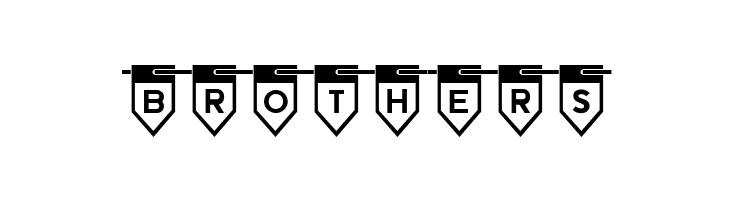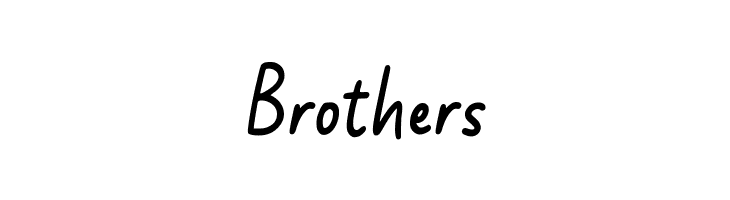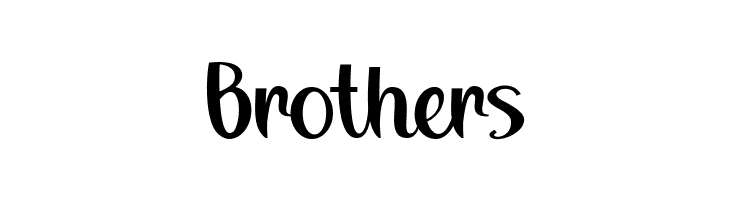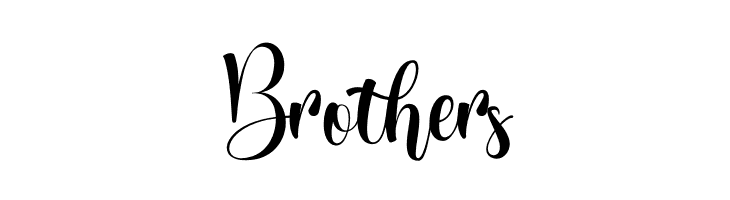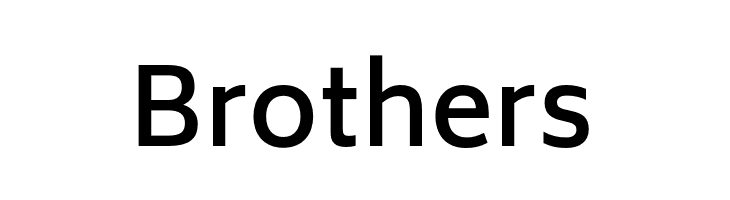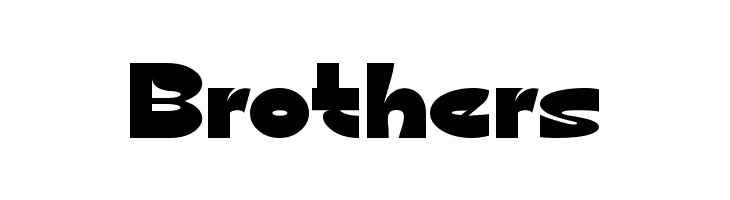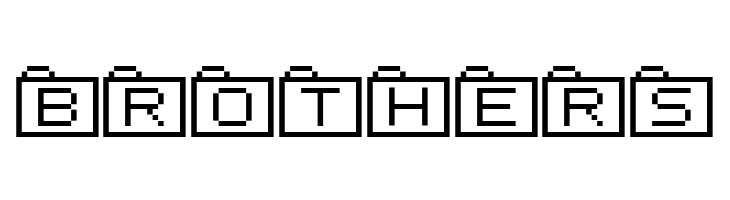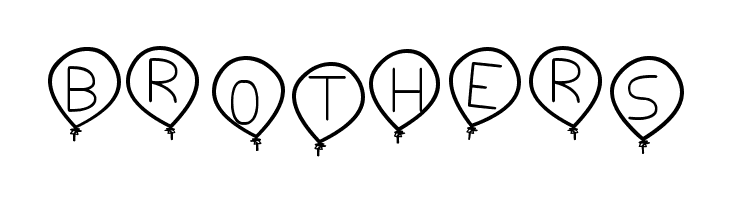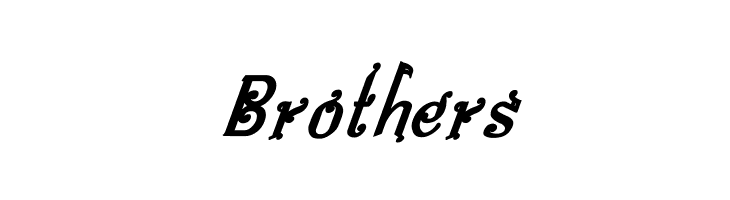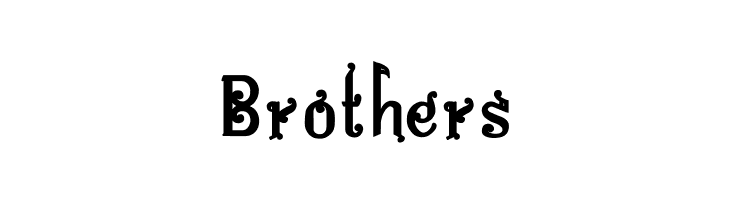
An elegant, flowing script font with a handwritten style.
A bold, decorative font with playful feather-like accents on each character.
An elegant and flowing script font with graceful curves and loops.
A bold, handwritten font with a playful and informal style.
A playful font with letters inside balloon shapes, perfect for festive occasions.
A playful, candle-themed decorative font with polka dots and flames.
A playful, rounded font with a friendly and approachable style.
A playful, handwritten script font with a modern and whimsical style.
A playful, decorative font with characters enclosed in flag-like shapes, ideal for festive designs.
An elegant, flowing script font with intricate loops and swashes.
A modern, geometric sans-serif font with uniform stroke widths.
A modern sans-serif font with clean lines and balanced proportions.
A playful, bold font with rounded, cartoonish characters.
A playful handwritten font with smooth, flowing lines and consistent stroke width.
A bold, geometric font with a modern and artistic style.
A decorative dotted font ideal for retro and playful designs.
Bold, iconographic font focused on cryptocurrency and finance symbols.
A bold, decorative font with whimsical and ornate details.
A bold, italicized decorative font with playful curves and artistic flair.
A decorative, musical-themed italic font with playful, artistic details.
A decorative and ornate font with whimsical embellishments.
A dot-matrix style font with a modern, digital aesthetic.
A playful and eclectic font with unique designs for each character.
A bold serif typeface with high contrast and classic appeal.
A bold, italic serif font with strong strokes and a dynamic, classic appearance.
A playful, handwritten-style font with bold, dynamic strokes.
A bold, brush-stroke font with a textured, hand-painted appearance.
A playful, casual handwritten font with smooth curves and consistent strokes.
A pixelated, retro-style font with a digital, blocky appearance.